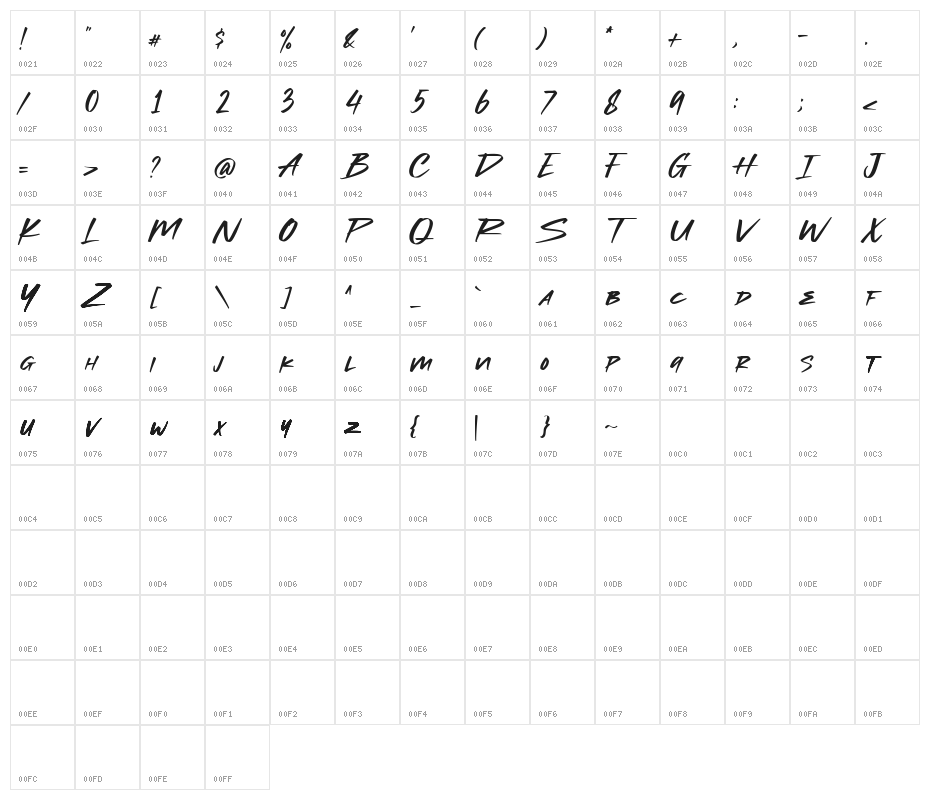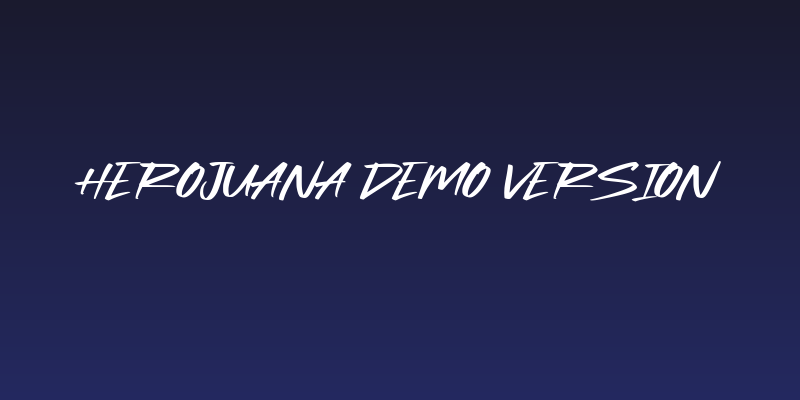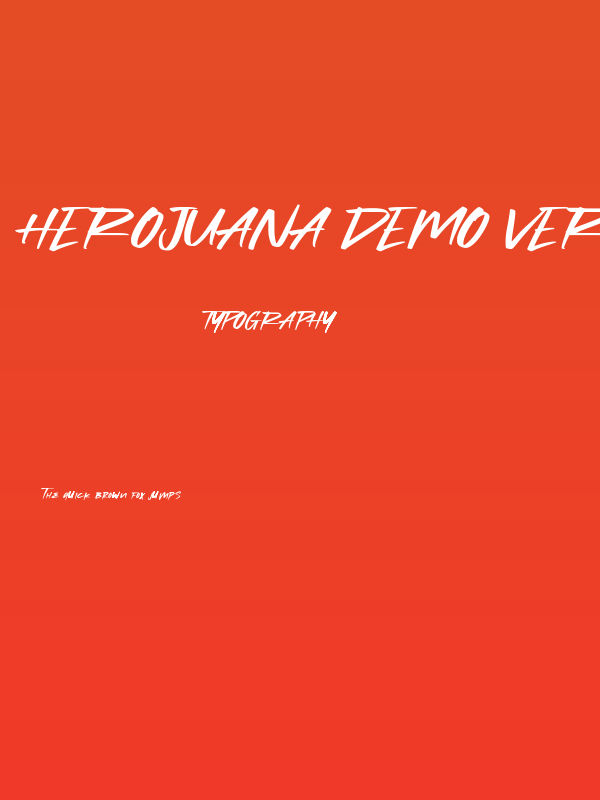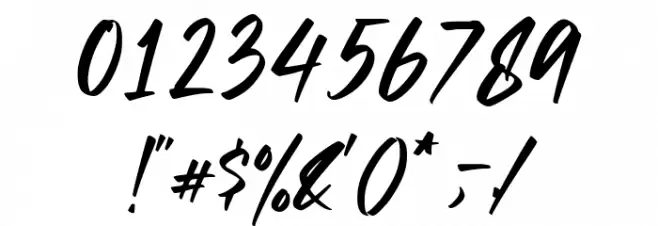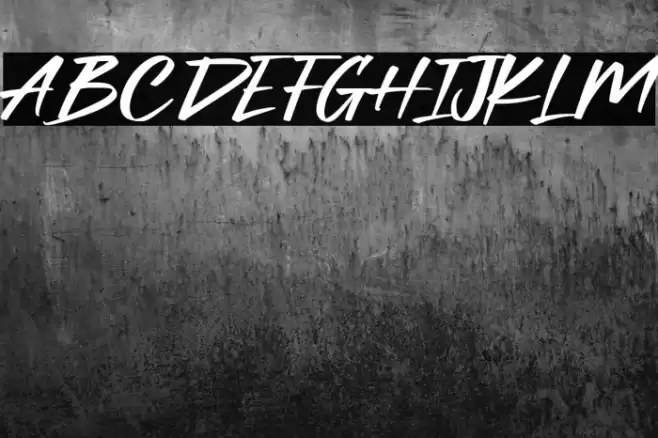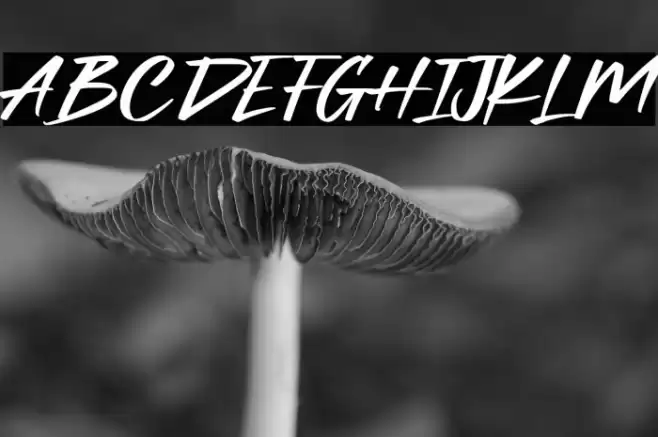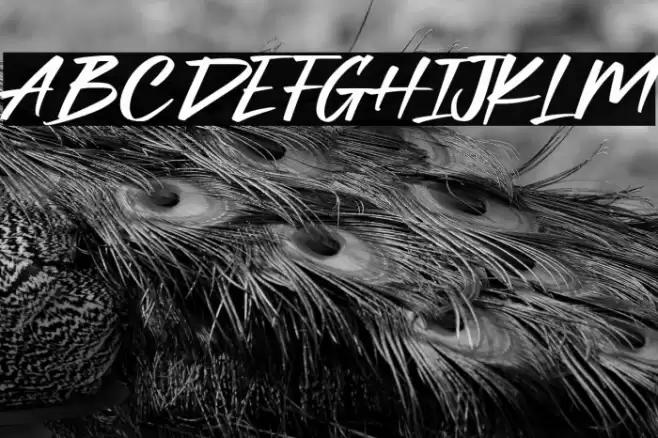
Herojuana Demo Version Font
This font features a dynamic and energetic script style, characterized by its bold and expressive strokes. The letters are slightly slanted, giving it a sense of motion and fluidity. The uppercase and lowercase characters maintain a consistent style, with a playful yet sophisticated appearance. The numerals and special characters are designed to match the overall aesthetic, ensuring a cohesive look across different uses. This font's unique style makes it ideal for projects that require a personal touch or a creative flair.
| Proposed Projects | Ideal for branding, logos, posters, and creative projects that require a personal and artistic touch. |